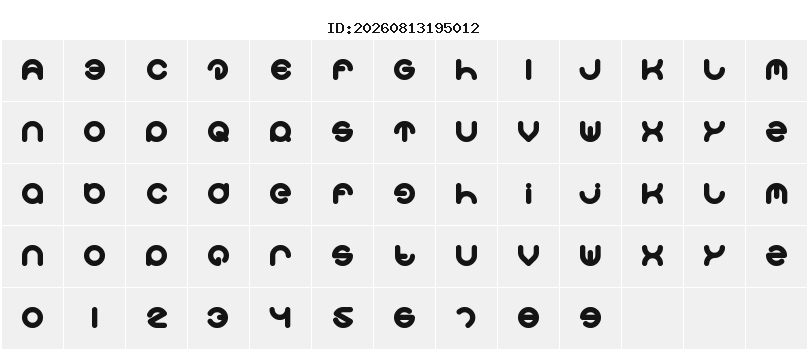
About smiley turtle.ttf
smiley turtle.ttf is a modern, elegant sans-serif font designed for ultimate readability and visual harmony. Perfect for branding, headlines, web design, and print materials.